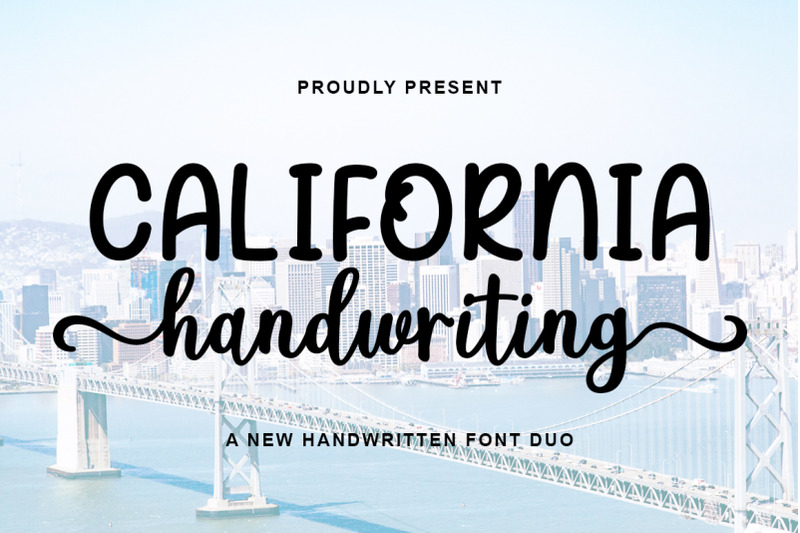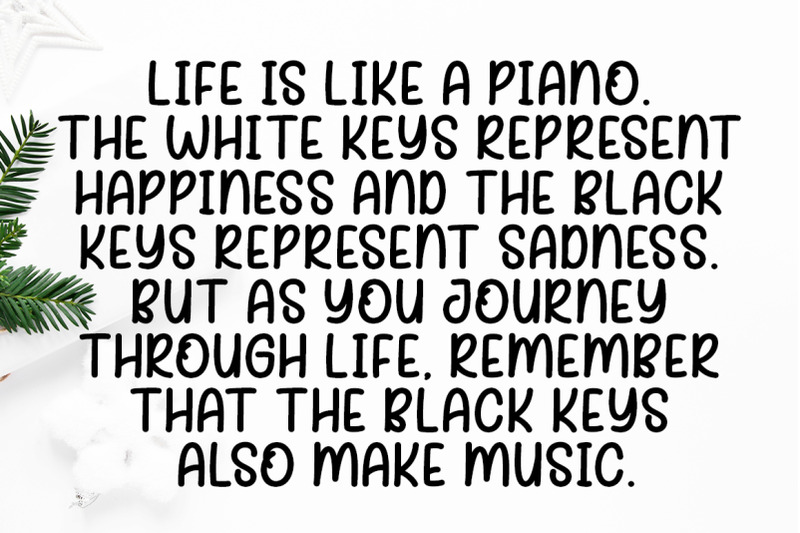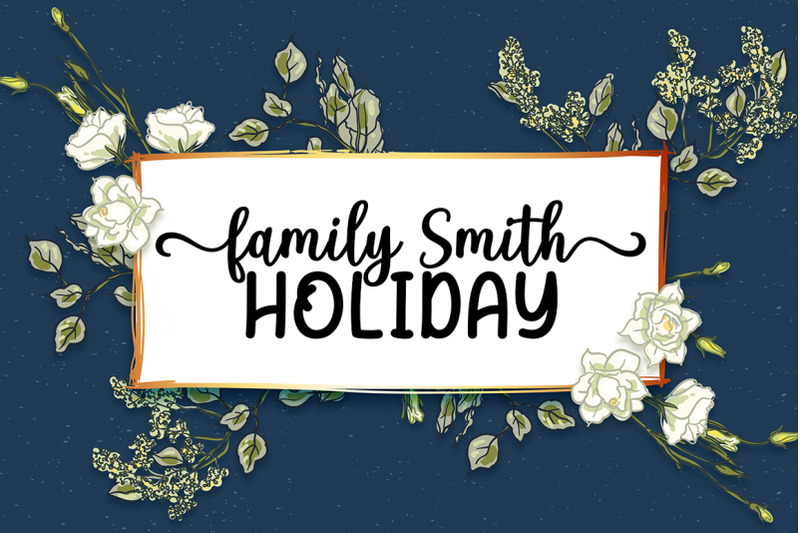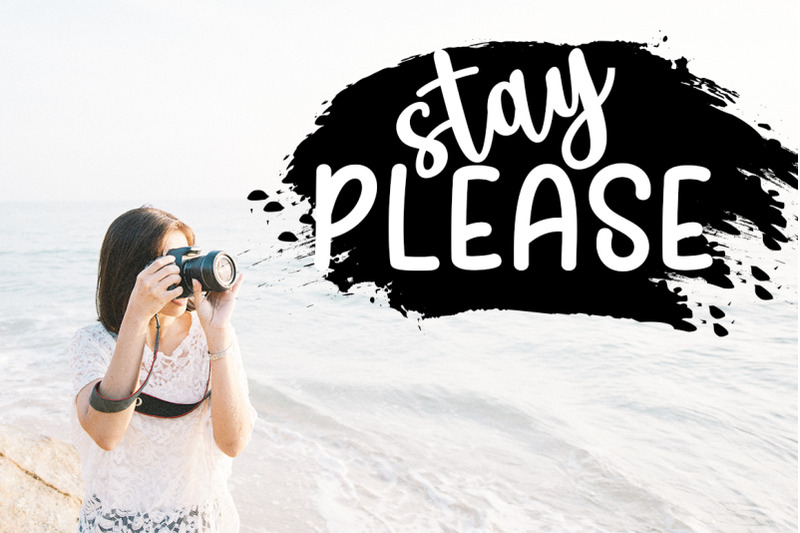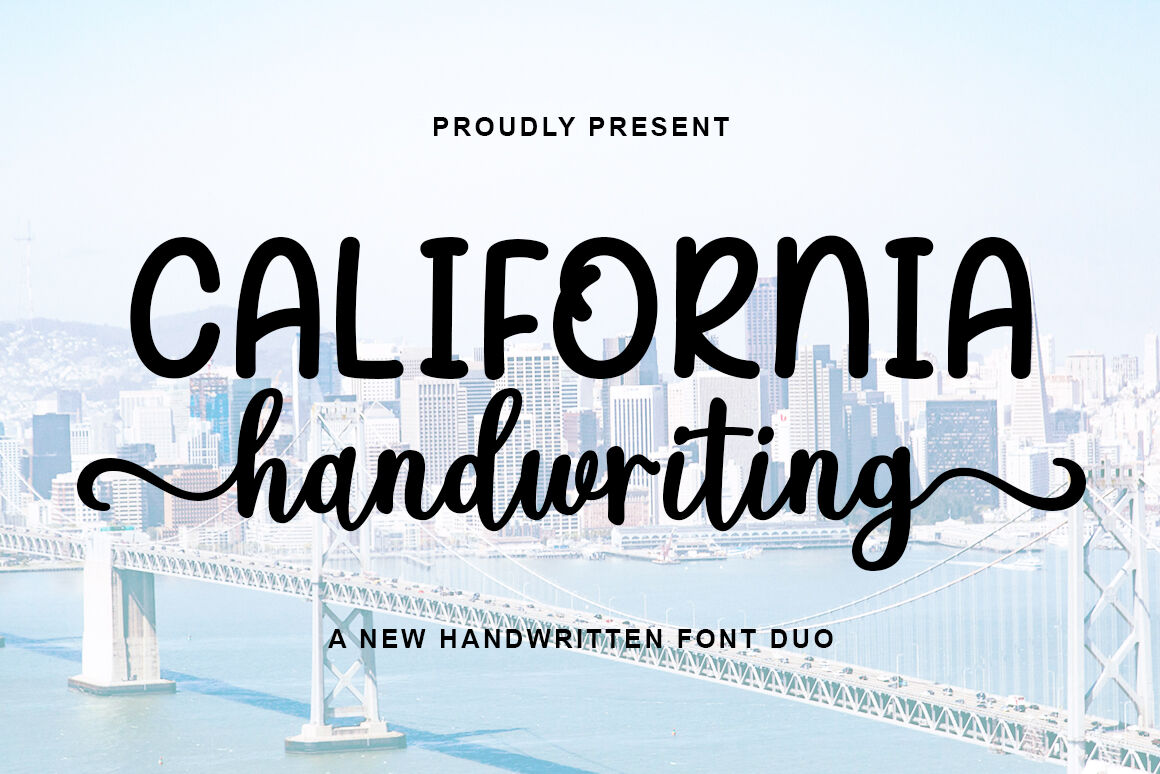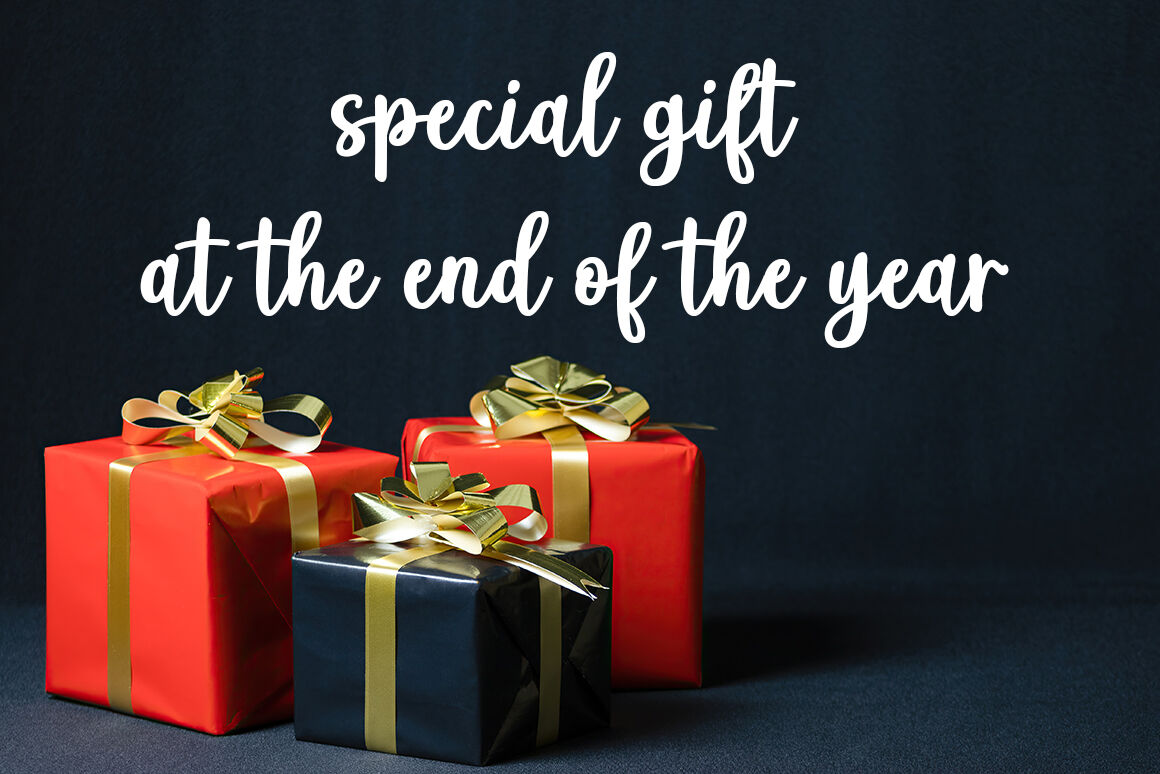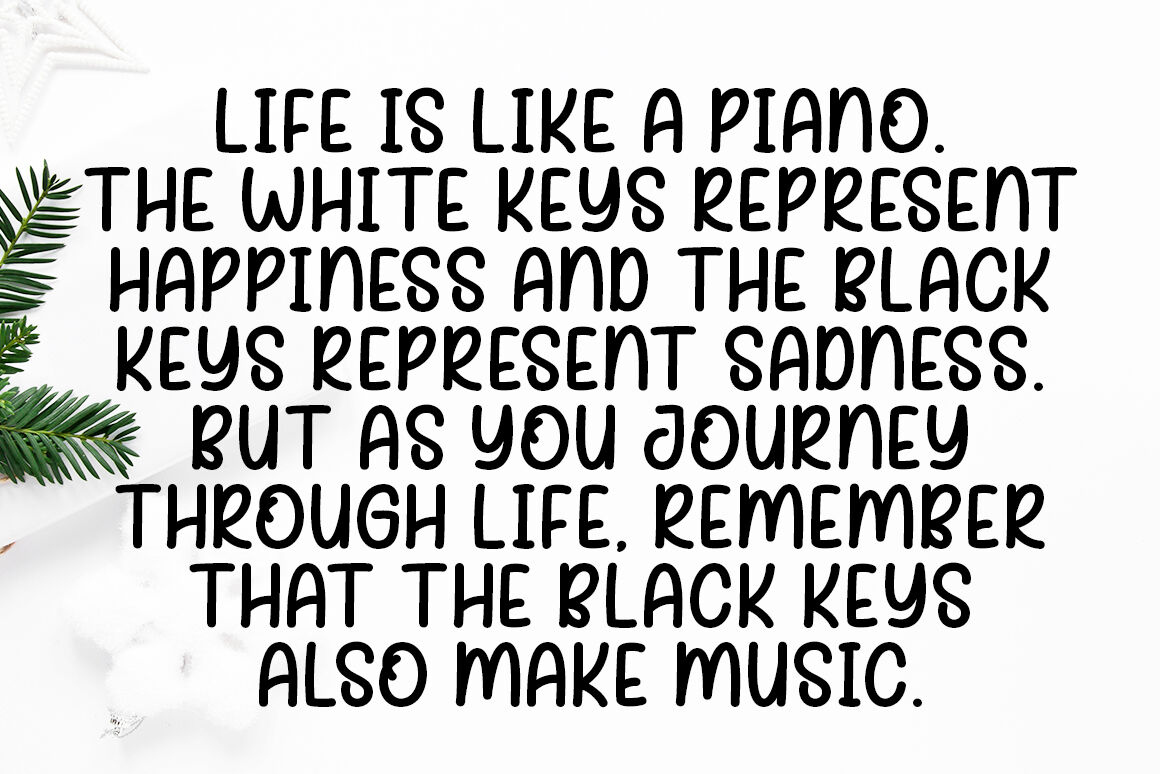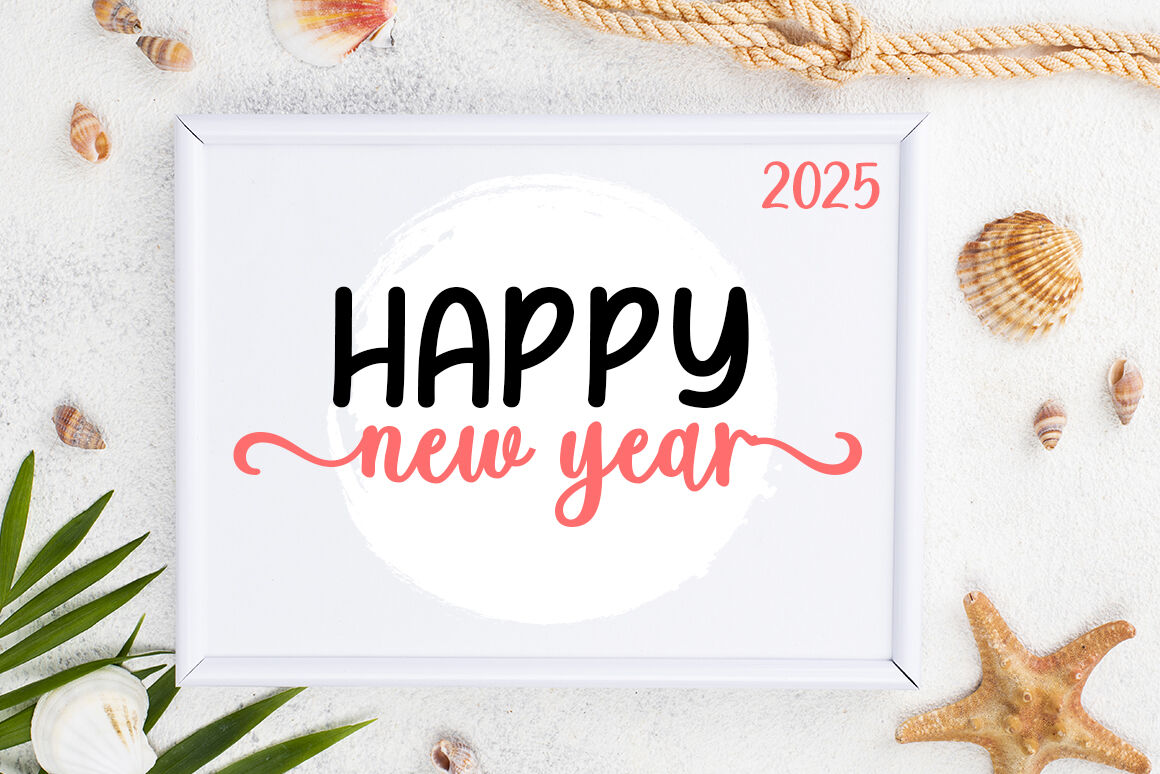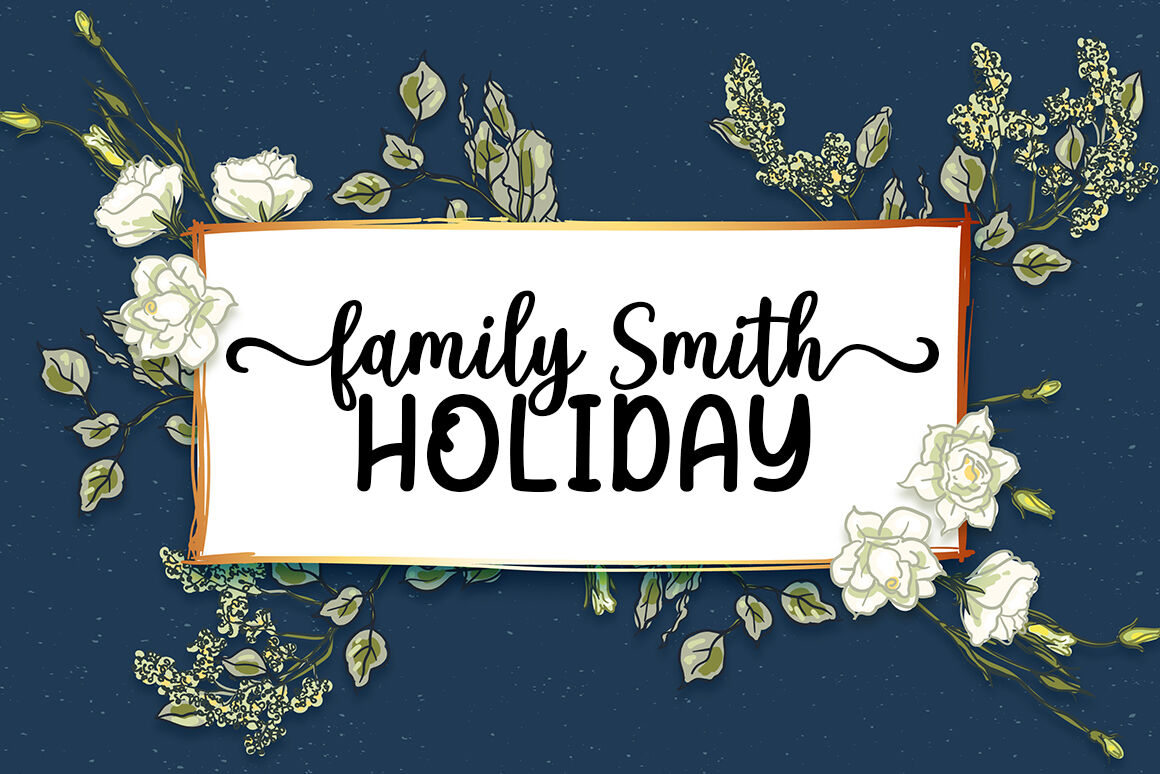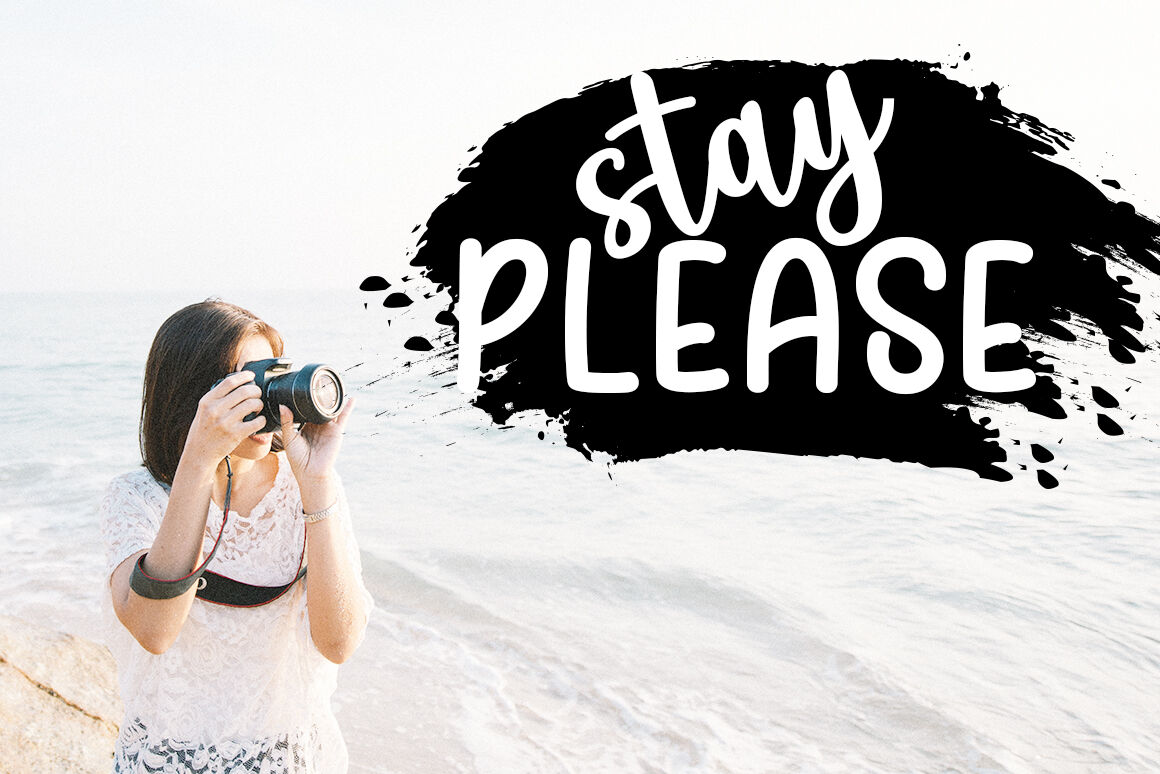
California Handwriting Font Duo
California Handwriting is a modern, stylish, and flowing handwritten font duo (script and display). It has beautiful and well-balanced characters and as a result, it matches a wide pool of designs. It is the best choice for creating eye-catching logos, branding, and quotes. Add it to your most creative ideas, and notice how it makes them come alive! This font is PUA encoded which means you can access all of the amazing glyphs and ligatures with ease!   Thank..